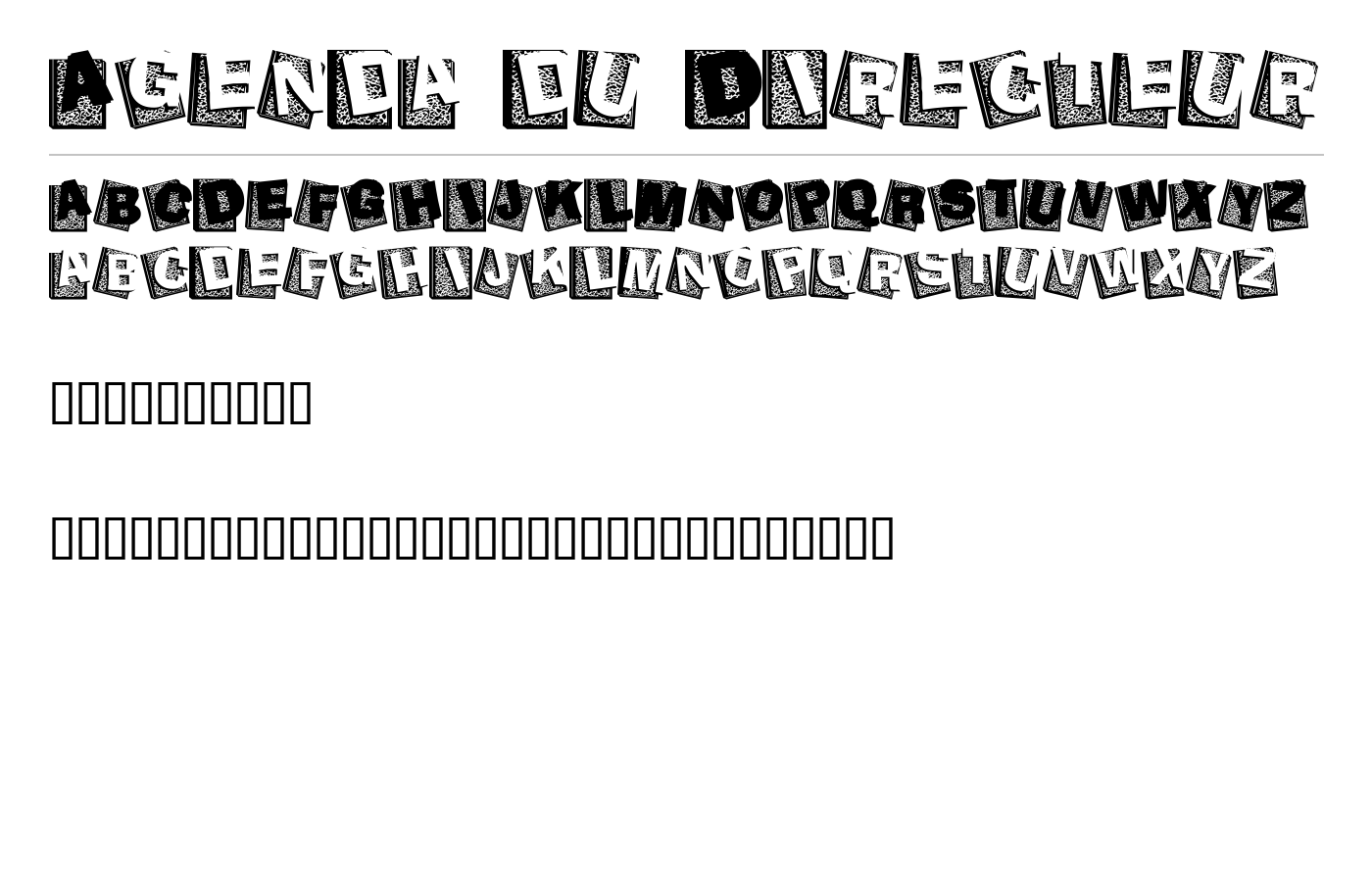
Agenda du Directeur is a bold, decorative display font featuring a playful, ransom-note style with each uppercase letter enclosed in uneven rectangular blocks that create a dynamic, textured look. Its irregular shapes and contrasting black-and-white patterns give it a quirky, edgy personality ideal for eye-catching headlines, posters, or creative branding projects seeking a fun and unconventional vibe. This font works best in designs that want to stand out with a distinctive, artistic flair rather than for body text or formal uses.
Agenda du Directeur Font
About Agenda du Directeur Font